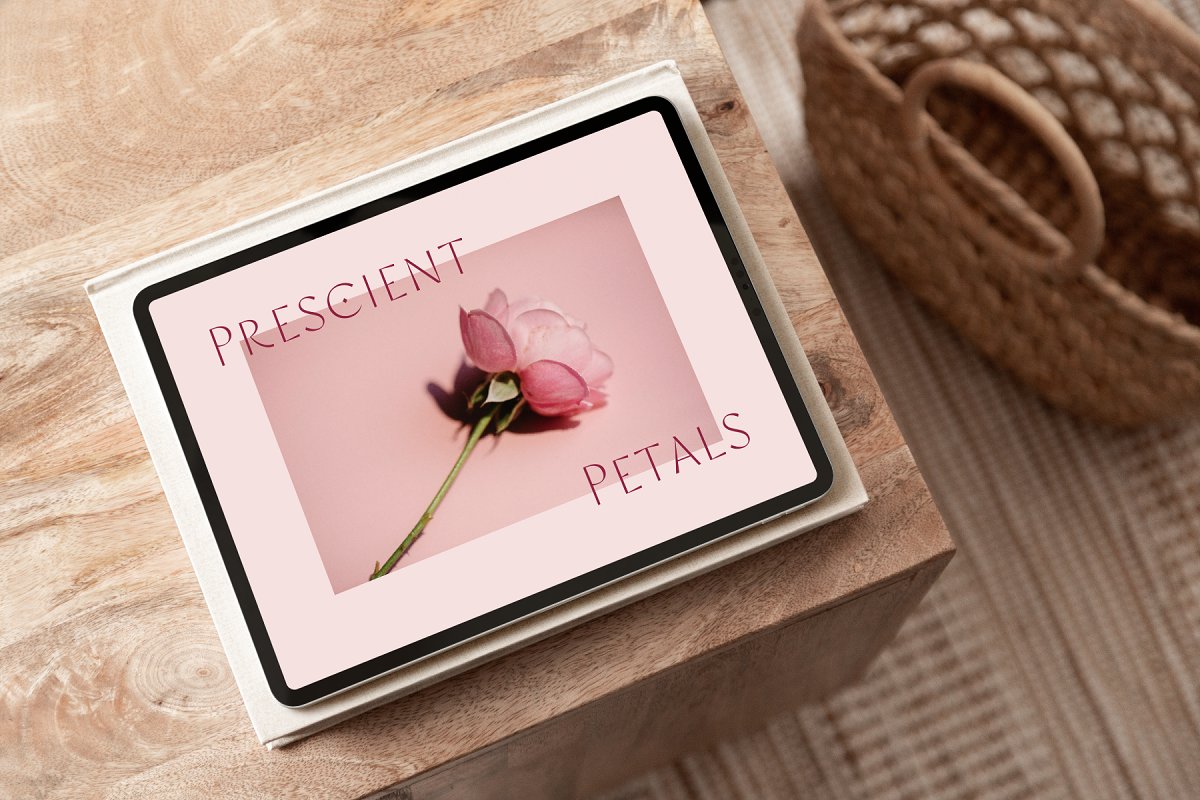
About the Rosewater
SummaryRosewater is a ribboned sans with narrow square capitals, wide rounded capitals and tinges of triangles for horizontal strokes, It also has an angled calligraphic stress for the rounded characters, An infusion of art-deco headlines and modern calligraphic inflections, but sanded off to have a uniform feel, OpenType FeaturesSmall Caps (smcp)Case Sensitive Forms (case)Lining Figures (lnum)Old Style Figures (onum)Tablular Figures (tnum)Tablular Old Style (tnum, onum)Fractions (frac)Stylistic Sets (ss01, ss02)Standard Ligatures (liga)Discretionary Ligatures (dlig)Stylistic Set 01 (ss01)“O”, “Q”, “C”, “D”Discretionary Ligatures (dlig)“KA”, “KE”, “KI”, “KO”, “KS”, “KU”, “KY”, “LA”, “LC”, “LD”, “LE”, “LI”, “LO”, “LS”, “LU”, “LY”, “OO”, “QU”, “RA”, “RC”, “RD”, “RE”, “RI”, “RO”, “RS”, “RU”, “RY”Version2